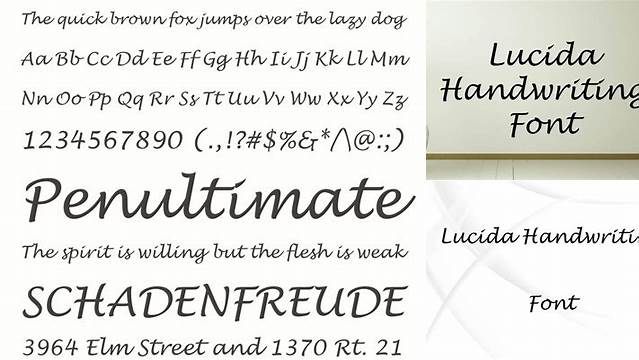
Hey guys! Ever stumbled upon a font that just speaks to you? For me, that font is Lucida Handwriting STD Bold. It’s got this incredible blend of elegance and readability that makes it perfect for tons of projects. Whether you’re working on wedding invitations, branding materials, or just want to spice up your digital notes, this font can really make a difference. But finding it for free? That can be a bit of a quest. So, let’s dive into everything you need to know about Lucida Handwriting STD Bold and how you can get your hands on it without breaking the bank.
What is Lucida Handwriting STD Bold?
Okay, first things first, let’s talk about what makes Lucida Handwriting STD Bold so special. It's a typeface designed to mimic, well, handwriting! But not just any handwriting – neat, stylish, and easily readable handwriting. The “STD” part refers to the standard version, and the “Bold” indicates a heavier weight, giving it more emphasis and presence compared to the regular version. This font was initially created by Charles Bigelow and Kris Holmes, renowned names in the world of typography. They aimed to create a font that looked natural yet remained legible across various sizes and applications. Think of it as the digital equivalent of beautiful cursive writing – perfect for adding a personal touch to your projects. The beauty of Lucida Handwriting STD Bold lies in its versatility; it works well in both print and digital mediums, making it a go-to choice for designers and hobbyists alike. Seriously, it's a game-changer when you want to add that human element to your work.
The Appeal of Handwriting Fonts
Why are handwriting fonts, like Lucida Handwriting STD Bold, so popular? It boils down to authenticity and connection. In a world dominated by sterile, digital-looking fonts, a handwriting font injects a sense of warmth and personality. It feels more human, more relatable. Imagine receiving a handwritten note versus a typed letter – which one feels more personal? That’s the power of a handwriting font. They evoke emotions and create a sense of intimacy that other fonts often lack. This makes them ideal for projects where you want to build a strong connection with your audience, such as invitations, greeting cards, or even blog headers. Plus, handwriting fonts can make your content stand out. In a sea of Arial and Times New Roman, a well-chosen handwriting font can grab attention and leave a lasting impression. And Lucida Handwriting STD Bold, with its clean and bold strokes, does this exceptionally well. It’s the perfect balance of readability and personality.
Lucida Handwriting STD Bold: Design Characteristics
Let's get a bit technical. The design characteristics of Lucida Handwriting STD Bold are what set it apart. The bold weight gives each character a strong presence, making it highly legible even at smaller sizes. The strokes are smooth and flowing, mimicking the natural movement of handwriting. One of the key features is its slightly irregular baseline, which adds to its hand-drawn feel. This means the letters don’t sit perfectly aligned, giving it a more organic look. The font also boasts well-defined ascenders and descenders (the parts of letters that extend above and below the main body), which enhance readability. Another notable aspect is the spacing between letters. It's carefully designed to ensure that the words flow smoothly without feeling cramped or too loose. All these elements combine to create a font that is both aesthetically pleasing and functional. Whether you're using it for headlines or body text, Lucida Handwriting STD Bold maintains its charm and readability.
Common Uses for Lucida Handwriting STD Bold
So, where can you actually use Lucida Handwriting STD Bold? The possibilities are pretty vast. Think about wedding invitations – it’s a classic choice for adding an elegant, personal touch. The same goes for greeting cards, thank you notes, and other stationery. But it’s not just for personal projects. Many businesses use it in their branding materials, such as logos, business cards, and website headers. It’s particularly popular in industries that want to convey a sense of warmth, creativity, or personal connection, like bakeries, boutiques, and handmade crafts. You might also see it in advertising campaigns, especially for products or services that aim for a friendly and approachable vibe. Bloggers and content creators often use it to create visually appealing graphics and social media posts. Basically, if you want to add a touch of personality and elegance to your project, Lucida Handwriting STD Bold is an excellent choice. Just remember to use it sparingly and strategically to avoid overwhelming your design.
Pairing Lucida Handwriting STD Bold with Other Fonts
One of the keys to great design is font pairing – choosing fonts that complement each other. When you're using a display font like Lucida Handwriting STD Bold, it's especially important to pair it with a more readable font for body text. You want something that won't compete with the personality of Lucida, but still looks good together. Some classic pairings include using Lucida Handwriting STD Bold for headlines and pairing it with a clean sans-serif font like Arial, Helvetica, or Open Sans for the body text. The contrast between the elegant handwriting and the simple sans-serif creates a balanced and professional look. Another option is to pair it with a serif font like Times New Roman or Garamond. This can create a more traditional and sophisticated feel. When choosing a font pairing, think about the overall tone you want to convey. If you're going for a modern and minimalist look, a sans-serif pairing is a good choice. If you want something more classic and elegant, a serif pairing might be better. And don't be afraid to experiment! Try out different combinations and see what looks best for your project.
The History and Evolution of Lucida Fonts
To truly appreciate Lucida Handwriting STD Bold, it's helpful to know a bit about the history and evolution of the Lucida font family. The Lucida family was created by Charles Bigelow and Kris Holmes in the 1980s. Their goal was to design a typeface that was highly legible on low-resolution computer screens, which were common at the time. The original Lucida font was a sans-serif design, known for its clear and simple letterforms. Over time, the Lucida family expanded to include a variety of styles, including serif, monospace, and handwriting versions. Lucida Handwriting was designed to mimic natural handwriting, with flowing strokes and a personal touch. The